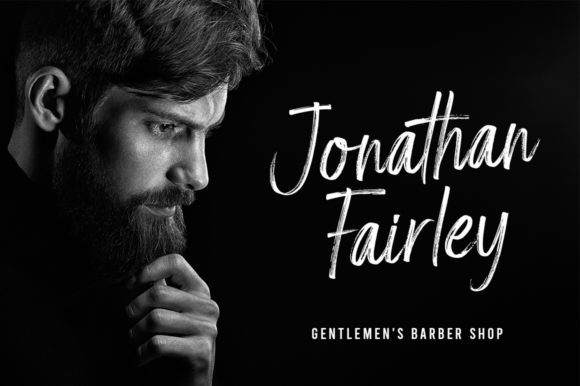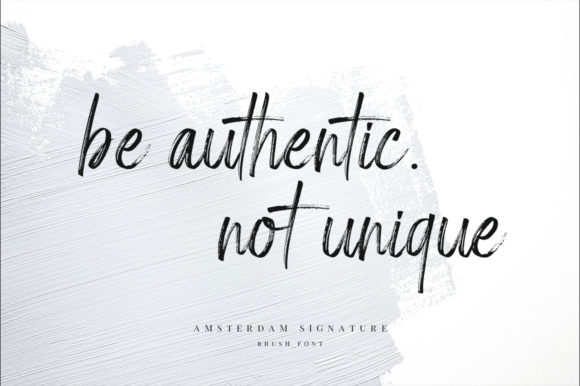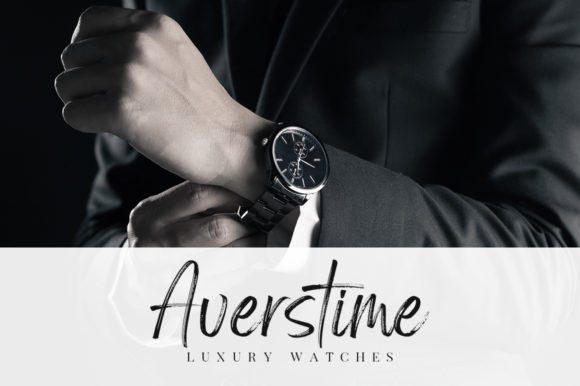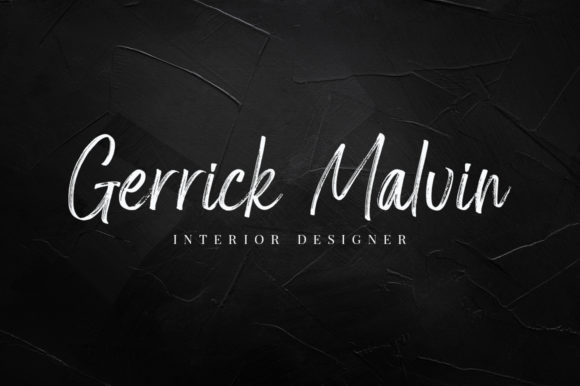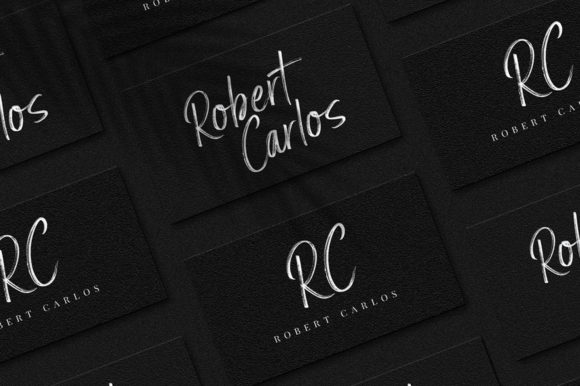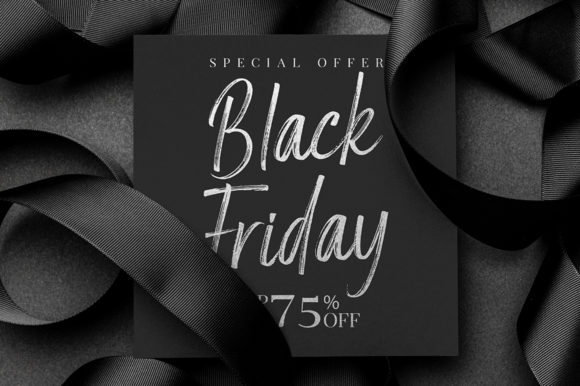
Introducing Amsterdam Signature Font: Elevate Your Designs with Elegance
Are you a designer or crafter looking for a font that can add a touch of sophistication and elegance to your work? Look no further than the Amsterdam Signature Font. This incredibly versatile and flowing handwritten brushed font is perfect for creating logos, watermarks, and branding materials that stand out from the crowd.
What Makes Amsterdam Signature Font So Special?
Amsterdam Signature Font boasts a neat and beautiful arrangement of letters, making it a joy to use for a wide range of design projects. Its unique blend of elegance and playfulness makes it an ideal choice for designers who want to add a personal touch to their work. Whether you’re creating a logo, watermark, or social media graphic, this font is sure to impress.
Perfect for Photography and Branding
Amsterdam Signature Font is particularly well-suited for photography and branding projects. Its flowing, handwritten style adds a touch of warmth and personality to any design, making it perfect for creating watermarks, logos, and other branding materials. With this font, you can add a professional touch to your photos and branding, setting you apart from the competition.
Key Features of Amsterdam Signature Font
- Versatile: Amsterdam Signature Font can be used for a wide range of design projects, from logos and watermarks to social media graphics and more.
- Handwritten: This font features a beautiful, handwritten style that adds a touch of personality to any design.
- Brushed: The font’s brushed texture gives it a unique, organic feel that’s perfect for creating designs that look hand-crafted.
- Elegant: Amsterdam Signature Font is the perfect choice for designers who want to add a touch of elegance and sophistication to their work.
Tips for Getting the Most Out of Amsterdam Signature Font
- Experiment with different colors: Amsterdam Signature Font looks great in a wide range of colors, so don’t be afraid to experiment and find the perfect hue for your design.
- Play with texture: The font’s brushed texture is a key part of its charm, so try experimenting with different textures and effects to add depth and interest to your design.
- Keep it simple: Amsterdam Signature Font is a beautiful font, but it can be overpowering if used with too many other design elements. Keep your design simple and let the font shine.
Amsterdam Signature Font is a versatile and elegant font that’s perfect for designers and crafters who want to add a touch of sophistication to their work. With its beautiful, handwritten style and brushed texture, this font is sure to impress. Whether you’re creating logos, watermarks, or social media graphics, Amsterdam Signature Font is the perfect choice.